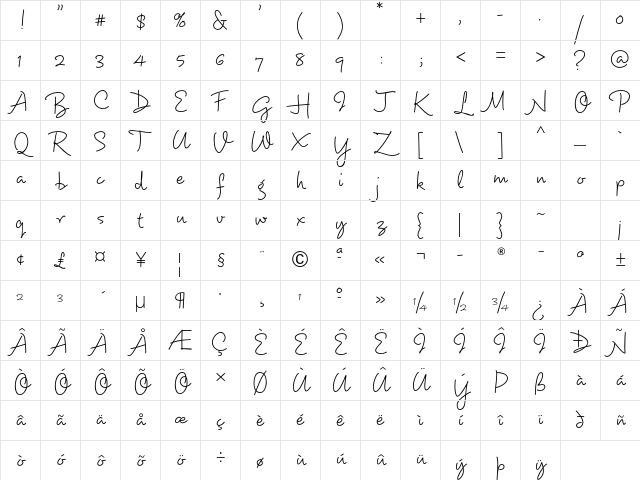
Complete Dartangnon ITC Std Regular glyph index. Displaying only characters natively supported by Dartangnon ITC Std Regular font.
Dartangnon ITC Std is a composed and adaptable typeface that performs quietly and consistently across a wide range of design contexts.